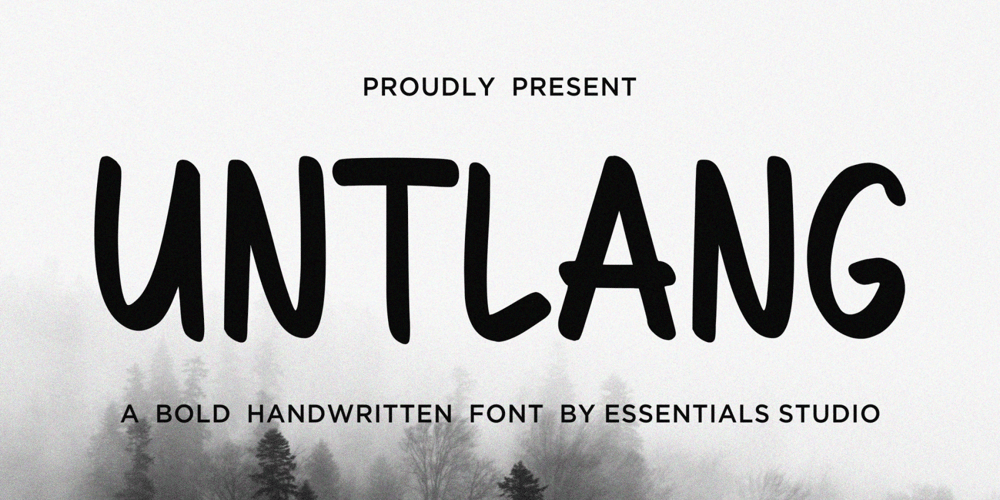
Untlang Font Family was designed by Sulthan Mada Maulana Tsani and published by Essentials Studio. Untlang contains 1 styles and family package options. Introducing by Essentials StudioProudly Present, UNTLANGUNTLANG Is a A Bold Handwritten FontUNTLANG is perfect for product packaging, branding project, megazine, social media, wedding, or just used to express words above the background.